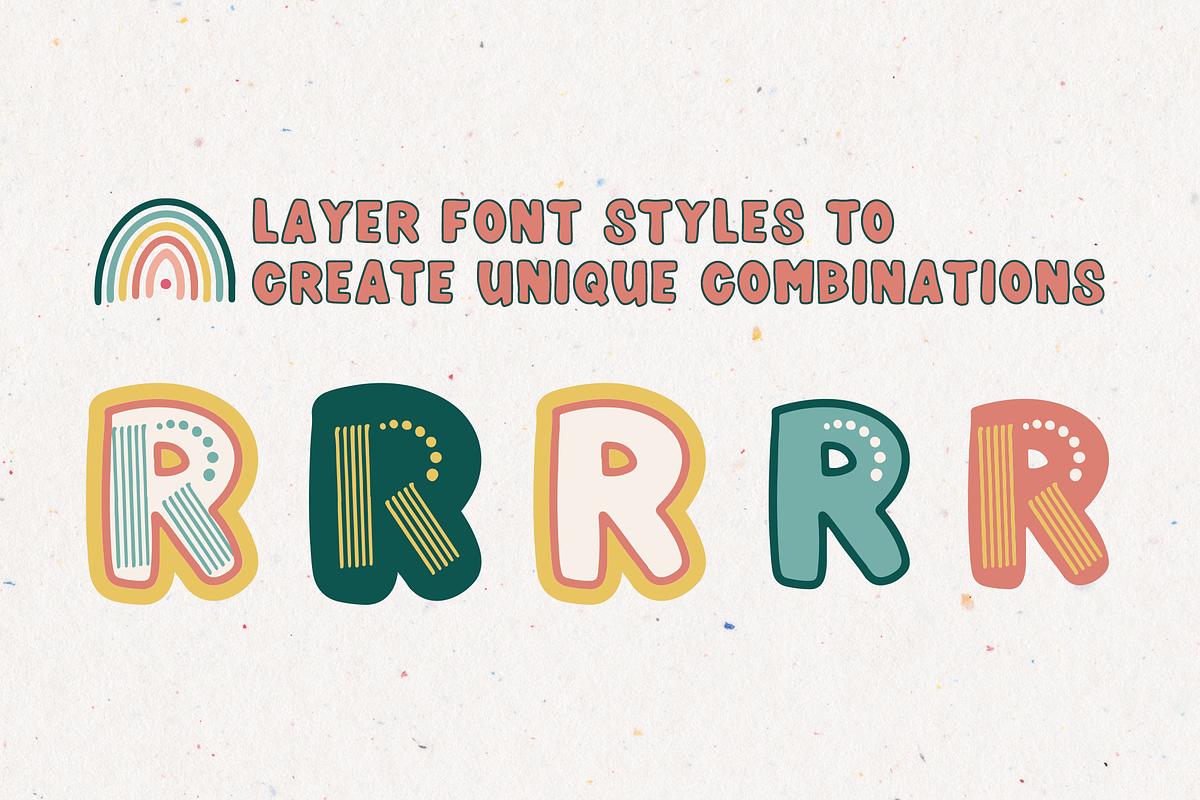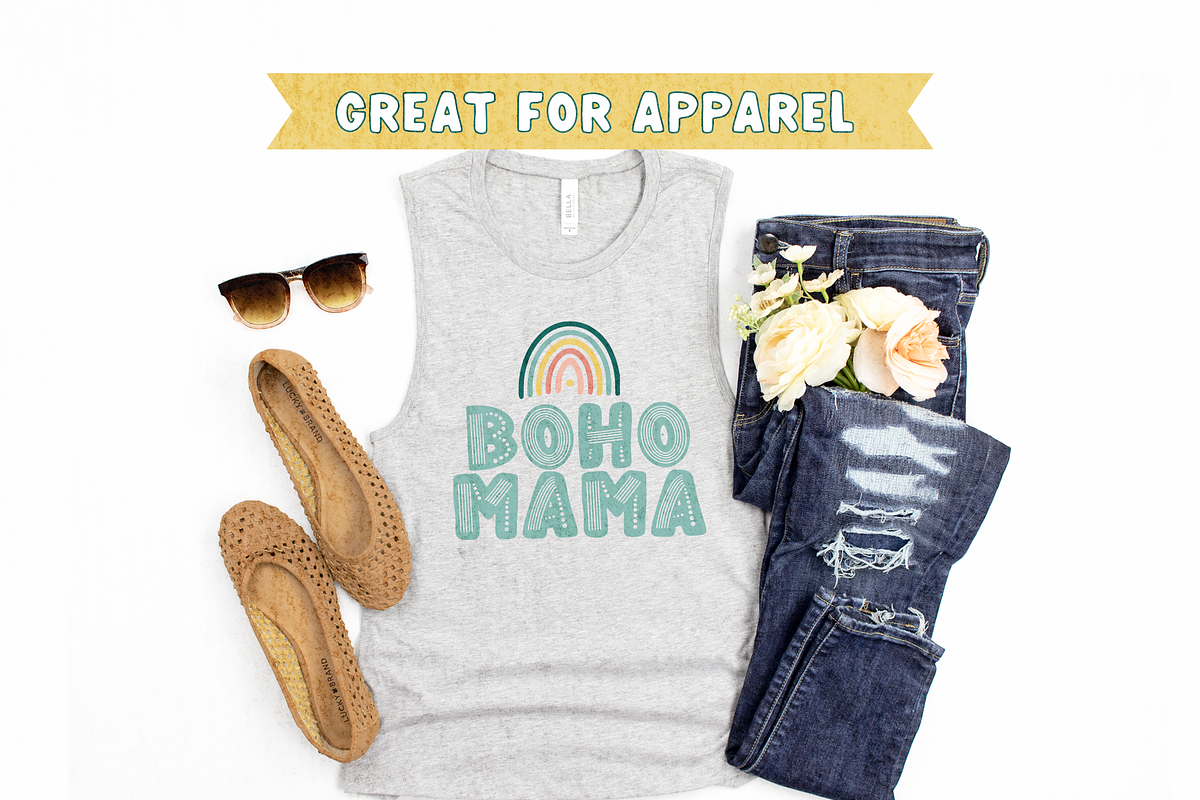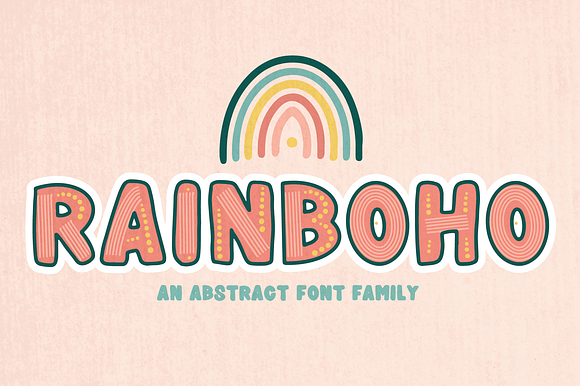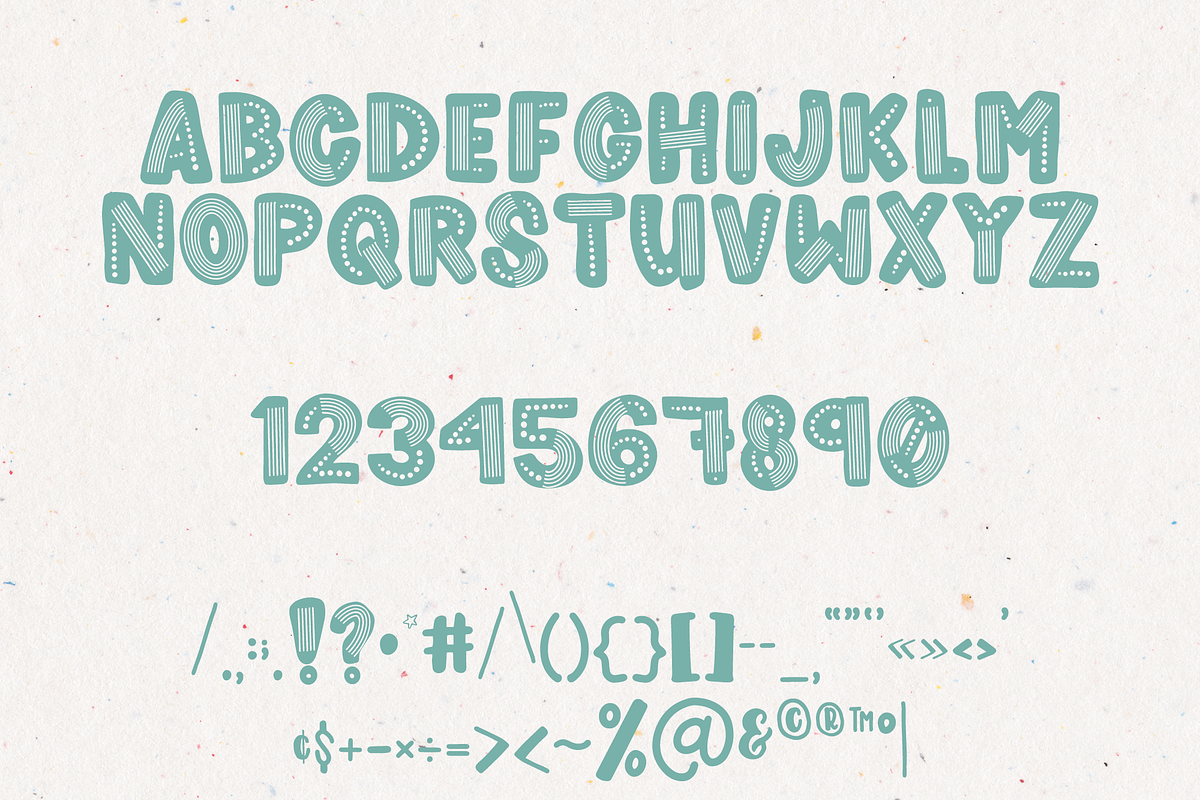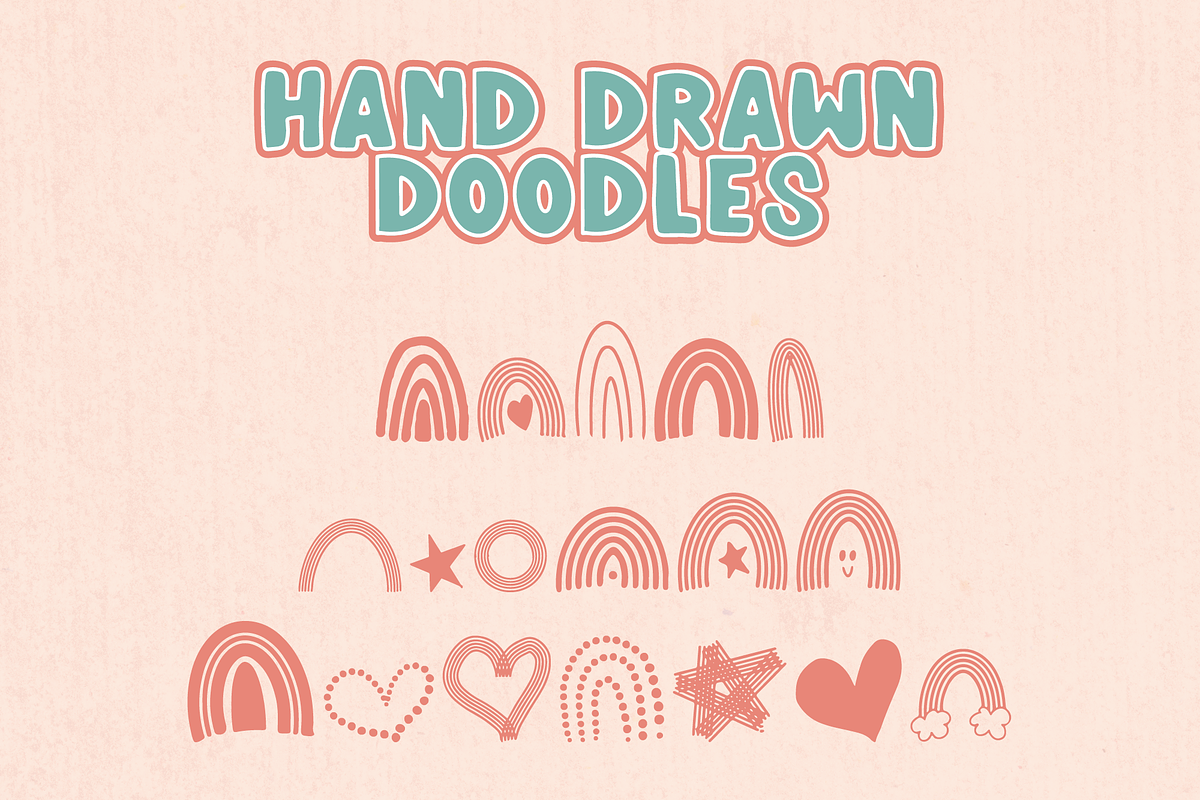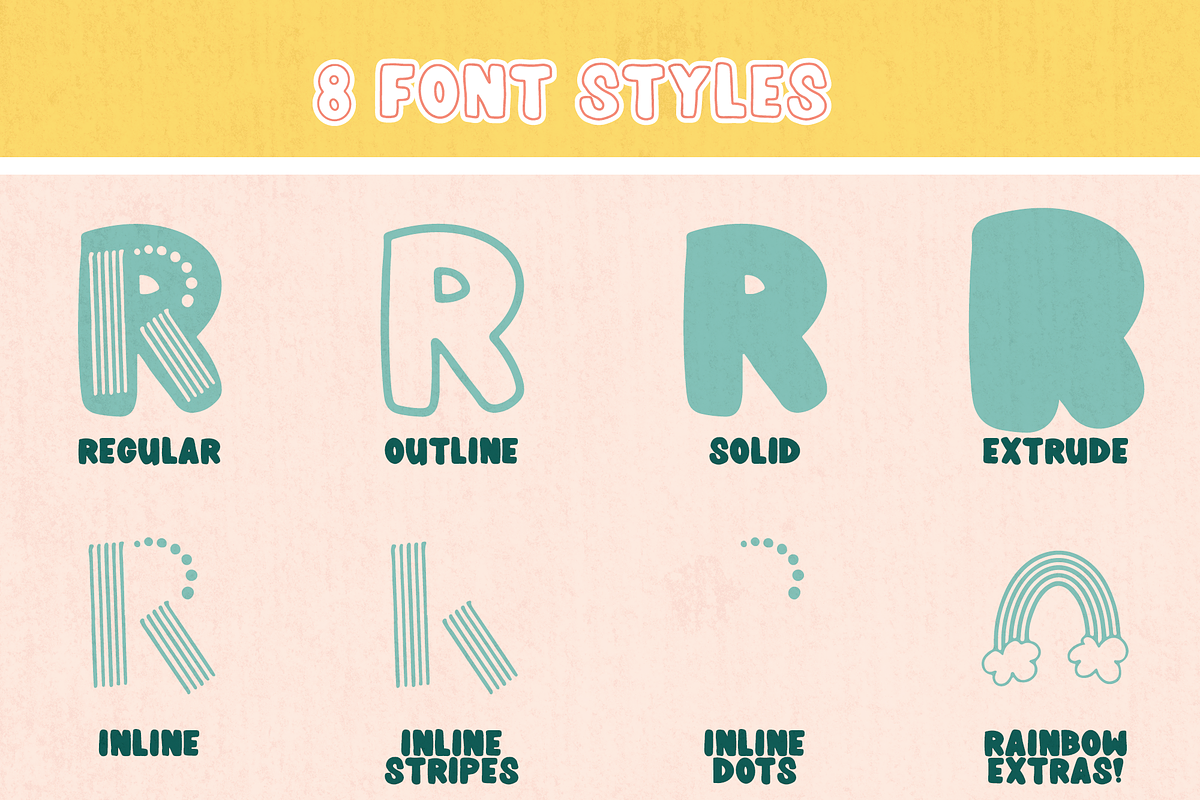
Rainboho - Layered Font Family
Rainboho is a Modern Boho Rainbow hand-lettered imperfect striped and dotted stackable font family.
It is a perfect abstract rainbow font for all of your design work including kids decorations, t-shirts, journals and coloring books, mugs, and party banners to name a few. Great for any diy project or cutting machine design such as welcome home and birthday banners.
This fun and festive stackable font family not only includes the multiple variations so that you can stack and layer to add some extra character to your project. It also includes some extra hand drawn rainbow doodles as well as an extruding version to add depth. Use it as a font for Cricuit, Silhouette, or any vinyl cut machine. Makes a great weeding font! Here are the 8 font styles included with your purchase: